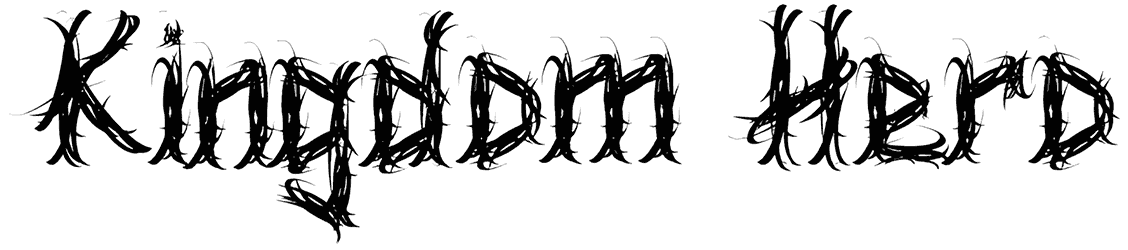
Kingdom Hero Font
Fun and spooky, Kingdom Hero was designed specifically for the Halloween season. It’s available in two variations, so you can pick the one that’s perfect for you.
Despite the absence of numerical letters, Halloween-themed event invitations, posters, and other promotional materials would greatly benefit from the use of this zombie font. Because of its one-of-a-kind style, your work will be noticed and appreciated by everyone who sees it. You can get Kingdom Hero from RB right now for free.